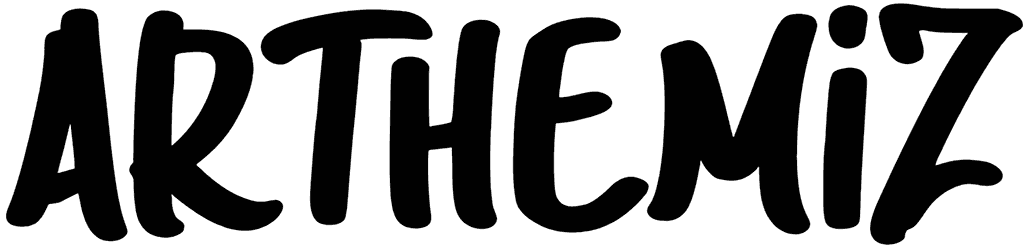
Arthemiz Font
Convert your word arrangement into a soft, cool artistic mood by inserting our today’s chance, Arthemiz, a script font, and seize all eyes on your text.
This urban font with a deluxe cartoonish vibe will reach your project’s top-notch even though it doesn’t comprise lowercase letters. Just press on to use it for animation, romantic quotes, invitation cards, or any text you fancy and overjoy the outcome.